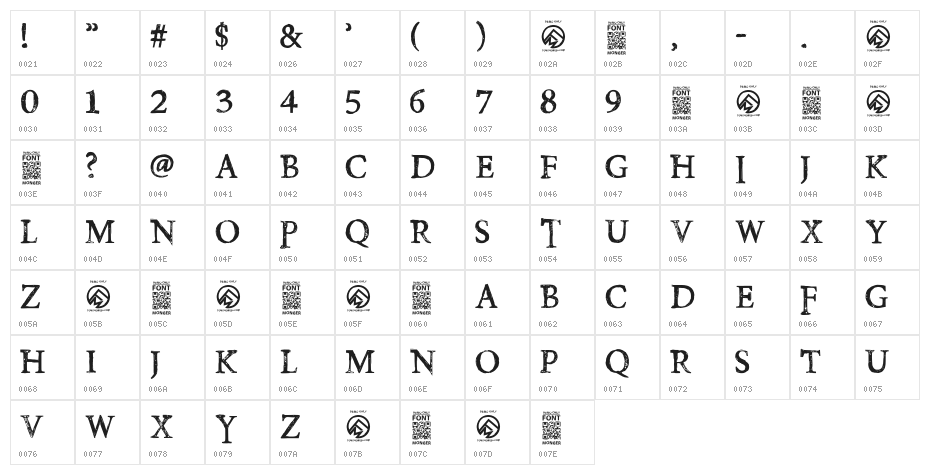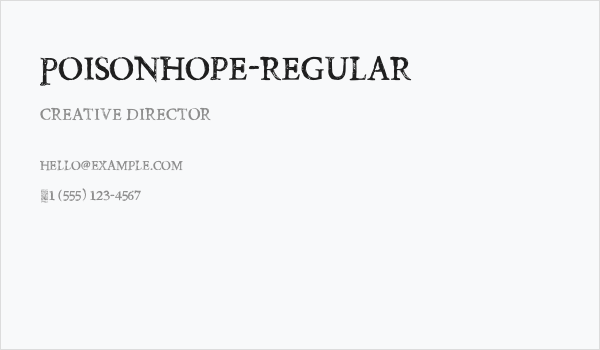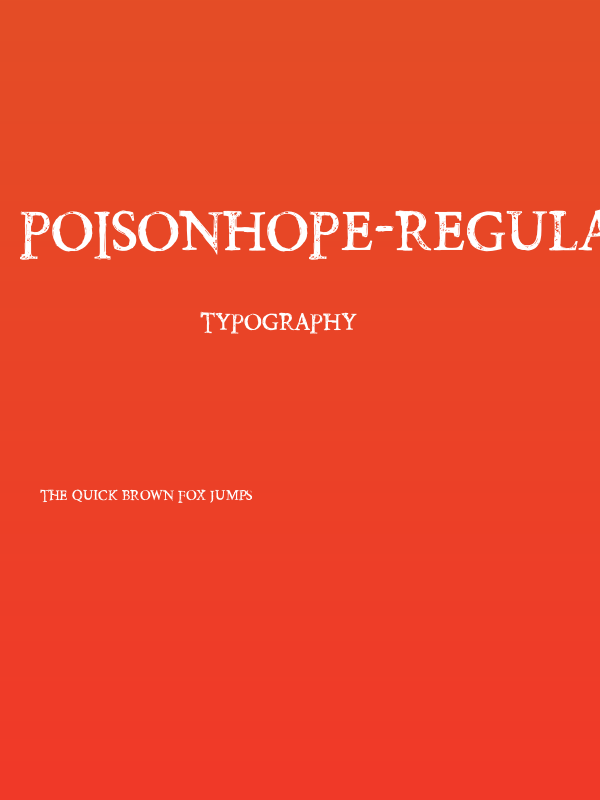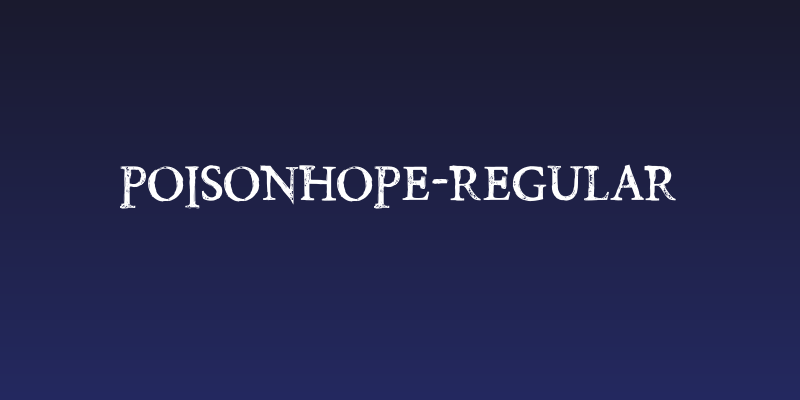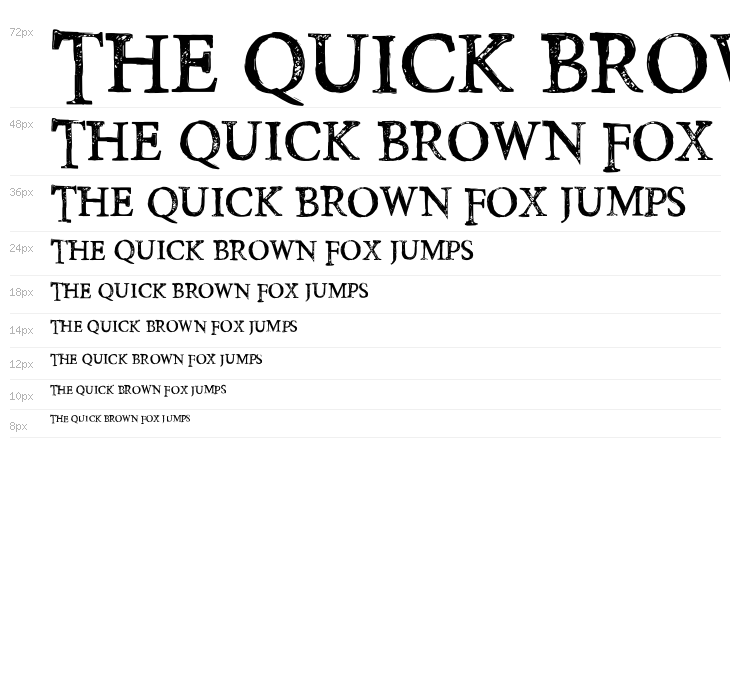
PoisonHope-Regular Font
PoisonHope-Regular Description
This font features a distressed, grunge style with a rough, textured appearance. The characters have an uneven, worn-out look, giving them a vintage and edgy feel. The uppercase and lowercase letters maintain a consistent style, with slightly jagged edges and irregularities that add to the font's character. The numbers and special characters follow the same design, ensuring a cohesive look across all elements. This font is ideal for projects that require a bold, impactful statement with a touch of ruggedness.
| Overall Style | Vintage, Edgy |
| Proposed Projects | Ideal for music album covers, posters, branding for edgy or alternative products, and any design needing a vintage, rugged look. |